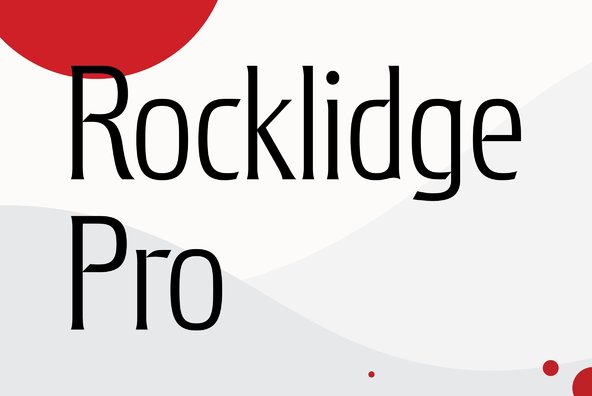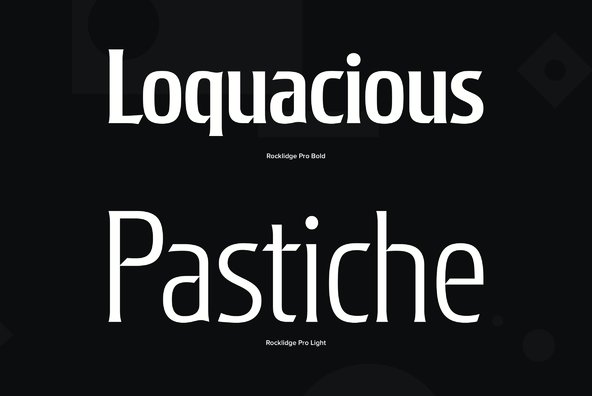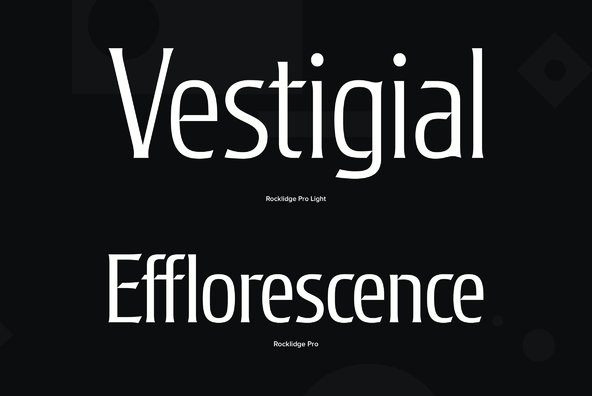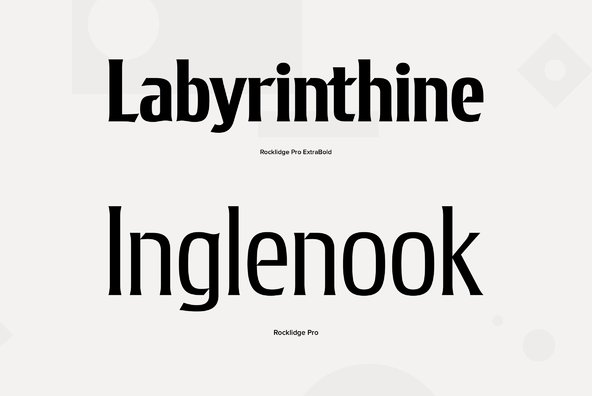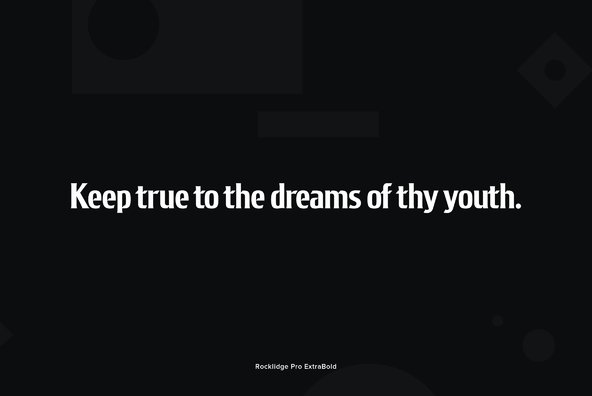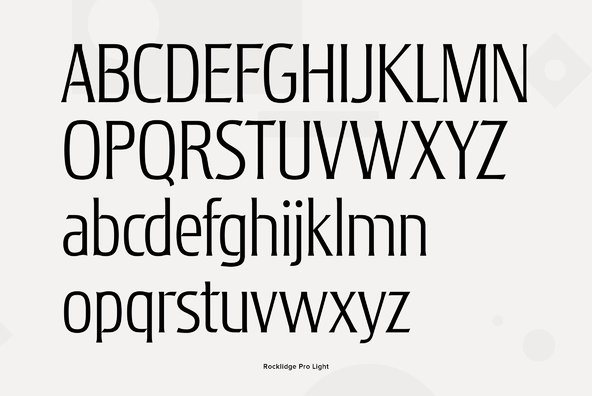
Rocklidge Pro
Designed by Steve Jackaman & Ashley Muir. This design was inspired by the 1965 VGC typeface, Jana by Richard D. Juenger. Originally available as a single weight, Rocklidge now has five weights and contains all the high-end features expected in a quality OpenType Pro font.